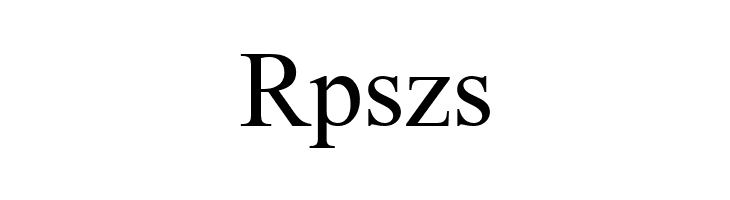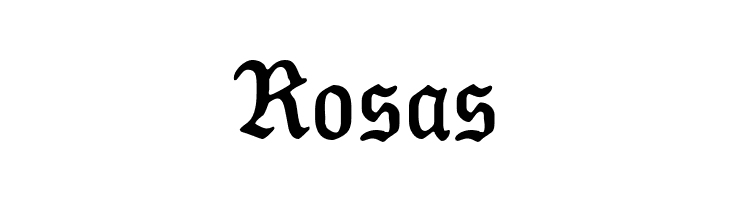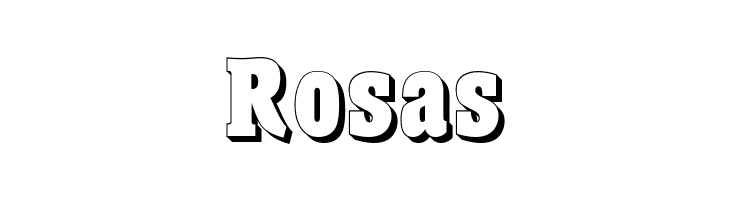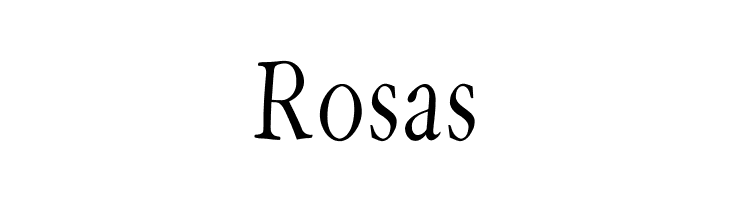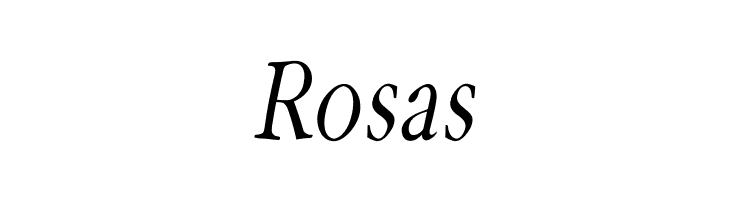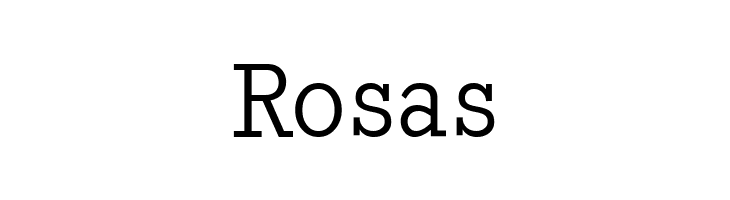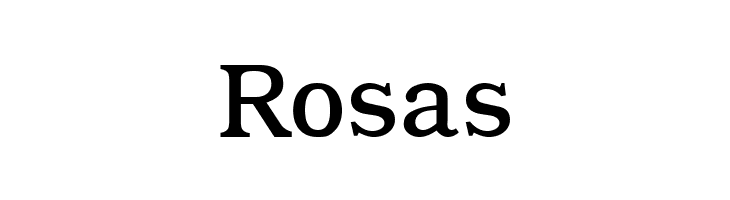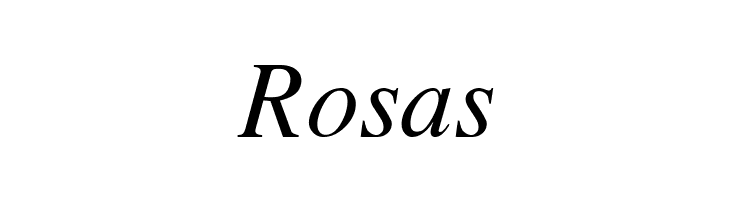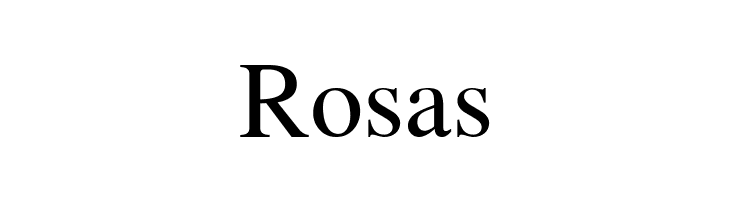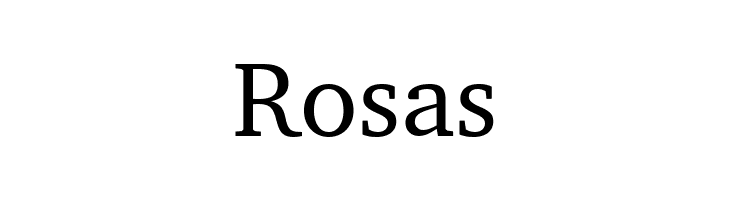
A classic serif font with elegant, slightly italicized characters.
A classic blackletter font with ornate, medieval-inspired letterforms.
A bold, shadowed font with a classic serif touch, perfect for impactful headlines.
A classic serif font with elegant, elongated letterforms and high contrast.
A classic serif font with elegant lines and high contrast, ideal for formal and modern uses.
A classic serif font with an elegant oblique slant and moderate contrast.
A classic serif font with modern elegance and balanced proportions.
An elegant italic serif font with a classic and sophisticated style.
A classic serif font with elegant strokes and high contrast.
A bold serif font with high contrast, perfect for impactful headlines.
A classic yet modern serif font with elegant and whimsical elements.
A classic serif font with elegant curves and moderate contrast, ideal for traditional and sophisticated designs.